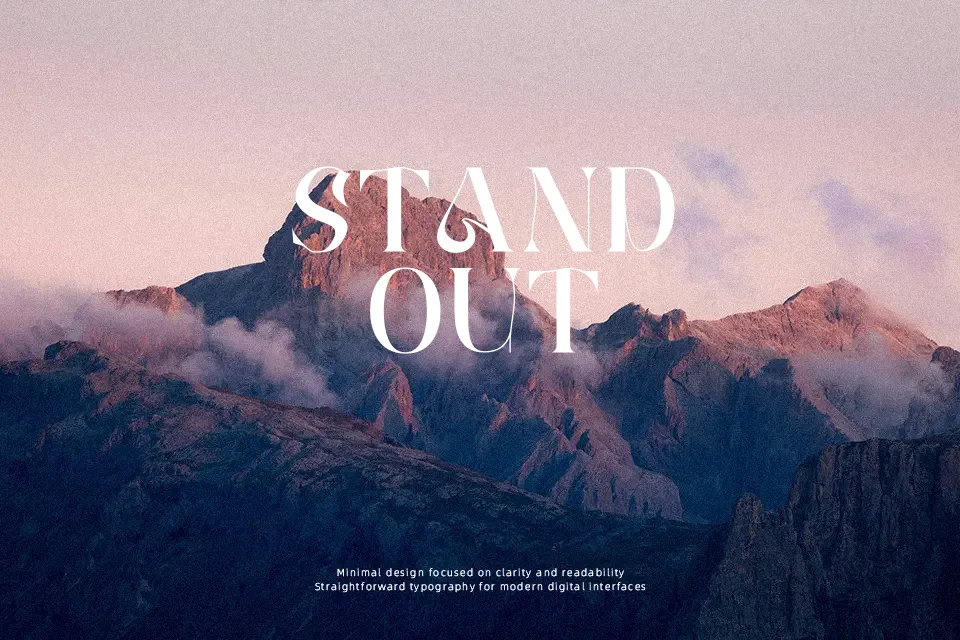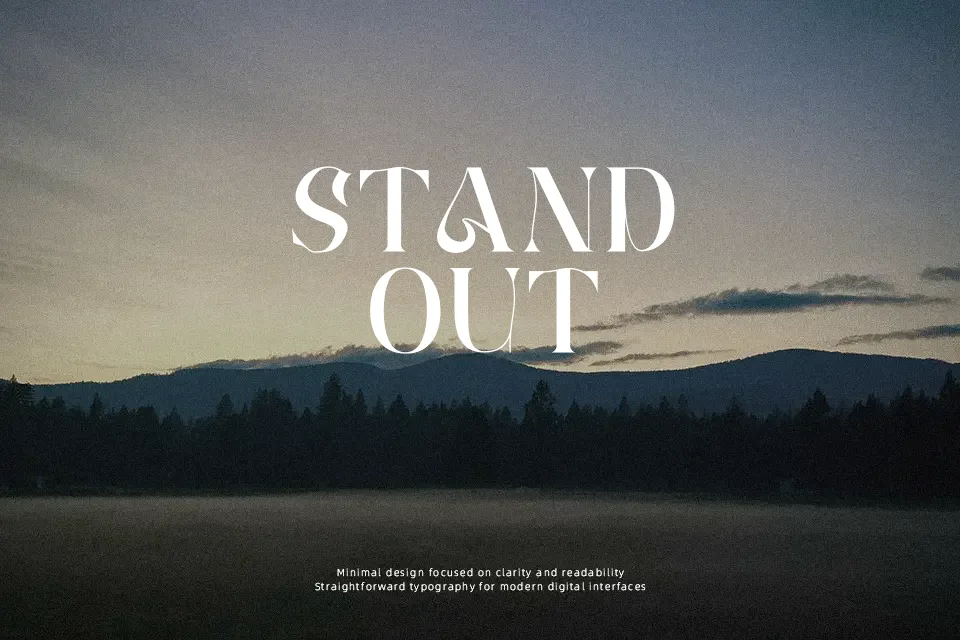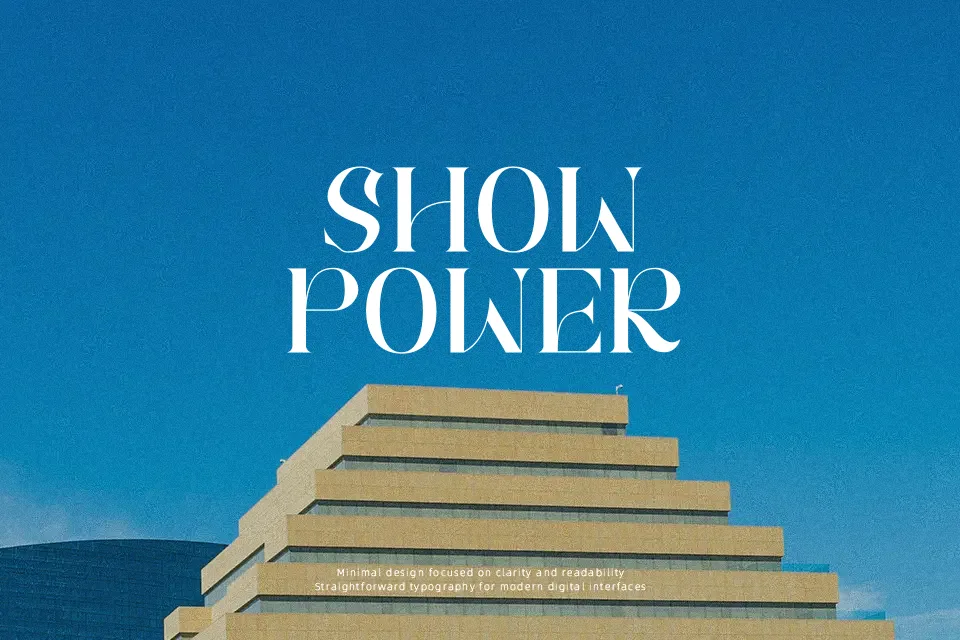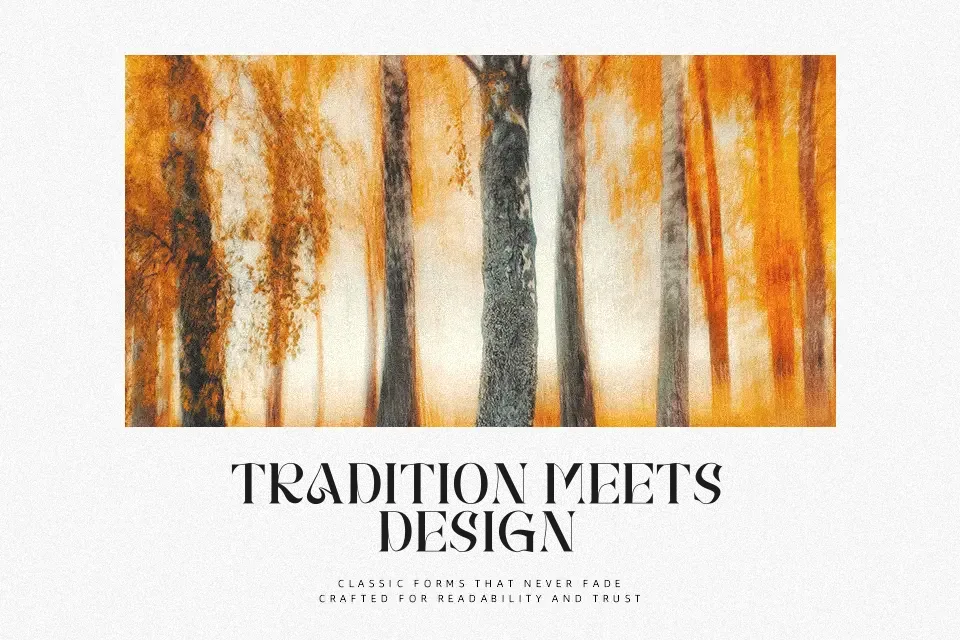
Brays Font
Designed by suhadidesign
Brays is a serif display font with compact proportions, smooth high-contrast strokes, and tightly connected ligatures that give words a flowing, custom-logo feel. Its letterforms lean vintage, with classy details that read as polished rather than fussy. In use, it shines on beauty brands, fashion or travel magazines, book jackets, quote graphics, and album covers where a sophisticated title or logo needs character. Compared with more rigid classic serifs, Brays feels softer and more decorative, so it supports expressive headlines better than long passages. It can look cramped or overly stylized in small body text or dense UI layouts, so it is best reserved for larger display sizes.
Beauty or fashion logos and wordmarks
Magazine covers and section titles
Book covers, quotes, and album artwork
Travel or lifestyle branding visuals
Long-form body text or reading-heavy layouts
Small UI labels, apps, or dashboards
Highly technical, corporate, or minimal interfaces
Perfect for branding, editorial, and fashion, with a artistic and display style.